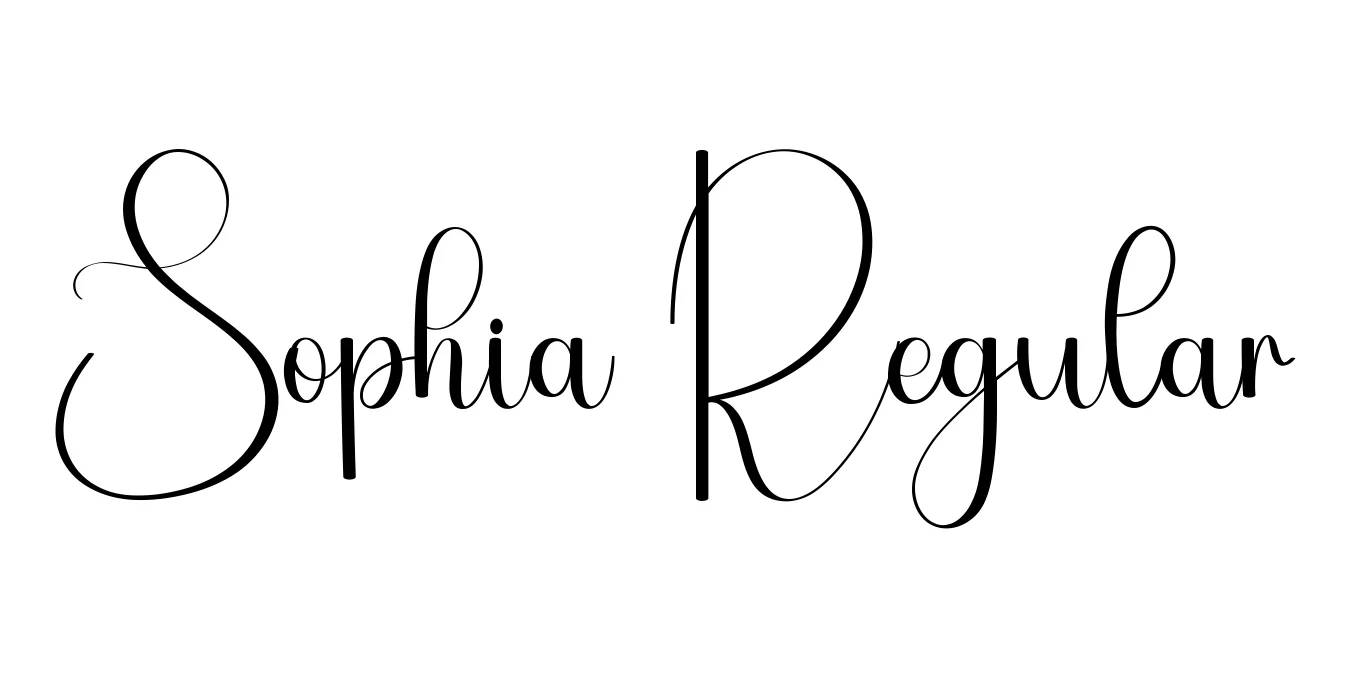
Sophia Regular
Designed by Emily Cone and Mats-Peter Forss
| Font Name | Sophia |
| Designer | Emily Cone and Mats-Peter Forss |
Sophia Regular is a charming, hand-lettered brush script font that gained significant popularity for its sweet, organic, and feminine aesthetic. Created by designers Emily Cone and Mats-Peter Forss, this typeface was designed to mimic authentic handwriting, providing a personal and warm touch to digital designs. Its fluid strokes and varying line weights give it a modern calligraphic feel that resonates well with contemporary DIY and craft-oriented design trends.
One of the most distinctive features of the Sophia family is its ability to be customized with decorative swashes. Originally released alongside 'Sophia Left' and 'Sophia Right' variants, the font allows users to add beautiful ornamental flourishes to the beginning and end of words, creating a seamless and custom-lettered look. This versatility has made it a go-to choice for designers working on projects that require a romantic or artisanal flair.
Sophia Regular Best Uses
Perfect for invitations, save-the-date cards, and table placements.
Ideal for creating inspirational quotes and stylish Instagram posts.
Great for boutique labels, lifestyle brands, and personal identity projects.
Adds a heartfelt and handcrafted sentiment to personal messages.